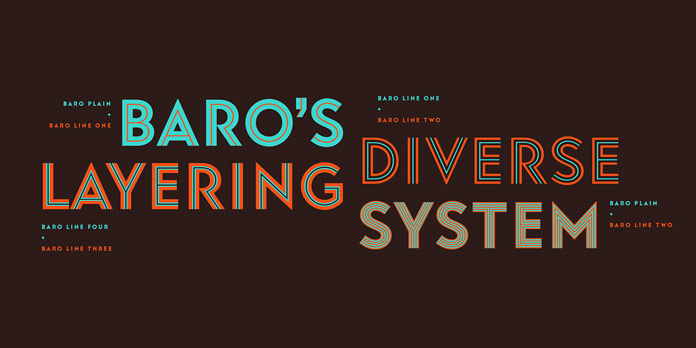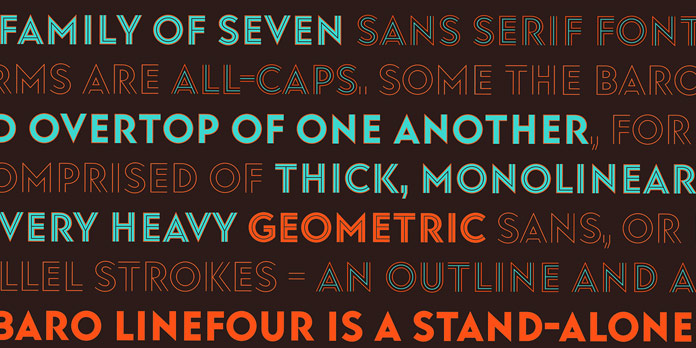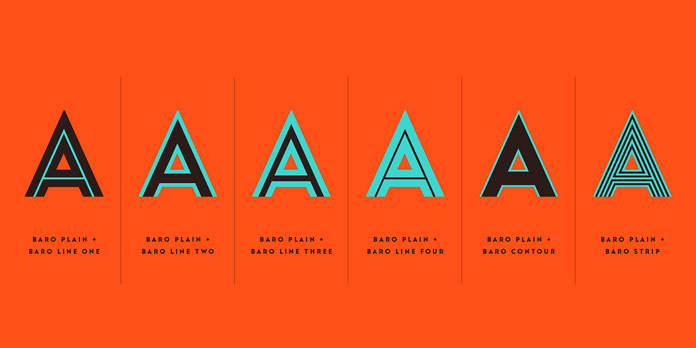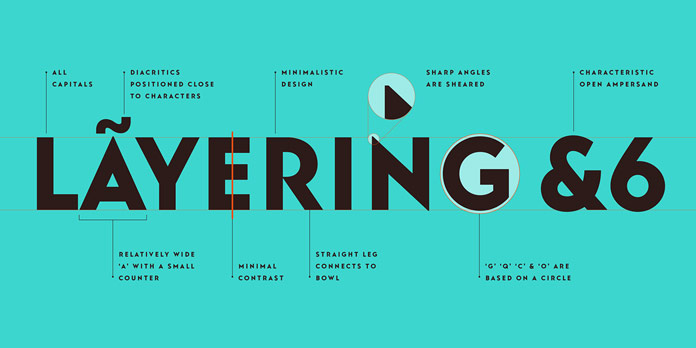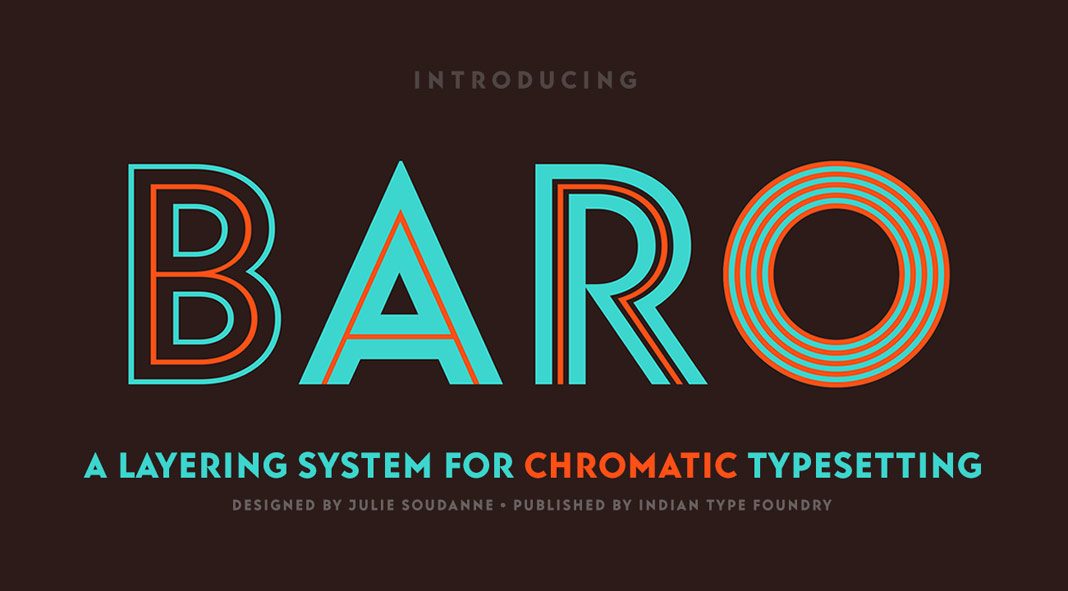
Baro, an all-caps font family from Indian Type Foundry with lots of layering options.
Designed by Julie Soudanne in 2018, Baro is a type family consisting of seven sans serif fonts. Its geometric letterforms can be layered on top of each other in various combinations. Baro Plain is the base of the family. All the other styles are comprised of thick, monolinear strokes. You can use Baro Plain on its own or as a base behind other Baro fonts. The family consists of only upper-case letters. For further information about this new type family, feel free to follow the link below.